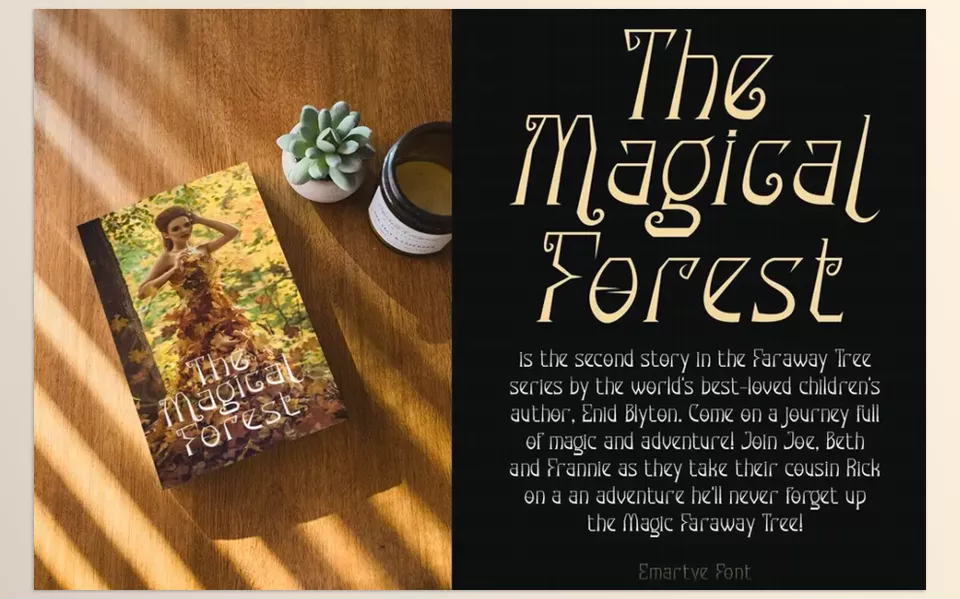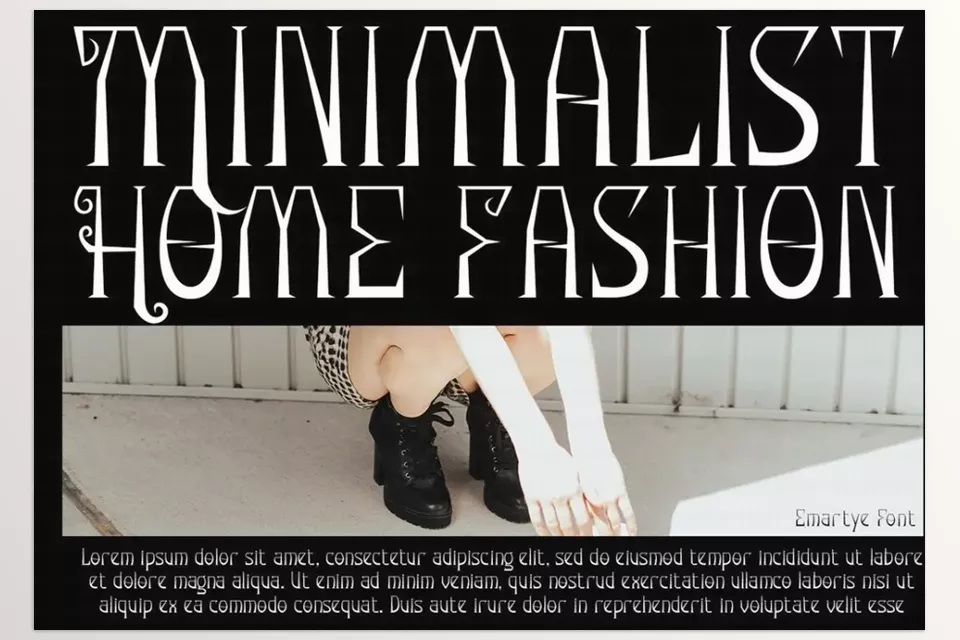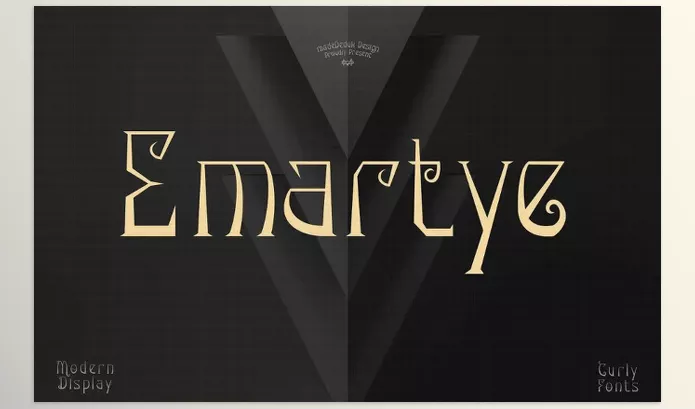
In forms of branding, product design, and any creative work, Youworkforthem – Emartye Font augments project scope with its innovative style. Adding to the contemporary design is a vintage touch with a bold and curvy display form.
Youworkforthem – Emartye Font Features
• Vintage Inspiration: A modern take depicting elegance & beauty.
• Versatile Use: Best suited for books, labels, and more.
• Perfect for Branding: Sharp logos and badges undergo novel changes.
• Wide Application: Effective for coffee shops, tattoo parlors, etc.
Preview Emartye Font
Image 1: It brings an artistic touch to any book cover design.
Youworkforthem - Emartye Font - It brings an artistic touch to any book cover design.
Image 2: It adds a distinctive edge to product labels and branding.
Youworkforthem - Emartye Font - It adds a distinctive edge to product labels and branding.